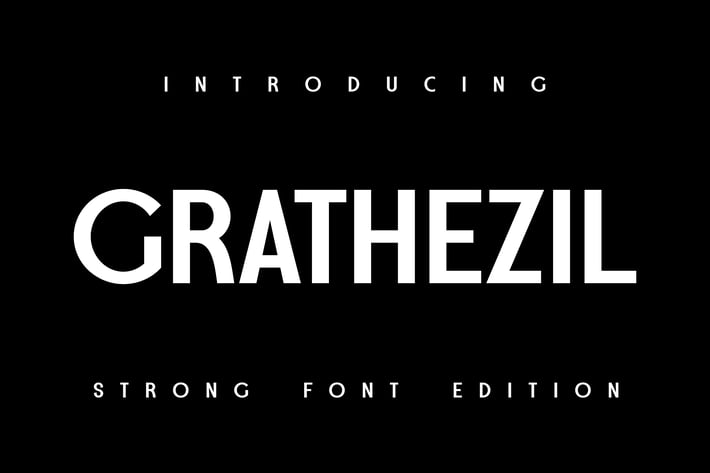
Grathezil Font
Step into the world of sterling typography with Grathezil, a robust sans serif font that majestically stands out. Tailored impeccably for heading titles, it effortlessly takes your web presence from ordinary to extraordinary. Yet its versatility doesn't end there. Grathezil's refined aesthetic lends it a refreshing clarity, making it an ideal choice for paragraph or generic text across various mediums, including tabloids. Whether you're creating a gripping headline or crafting an extensive article, Grathezil adds an inviting touch of sophistication that caters to all your typographic needs.